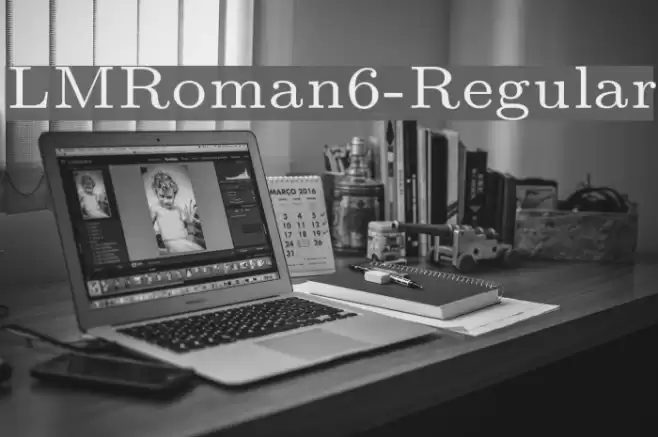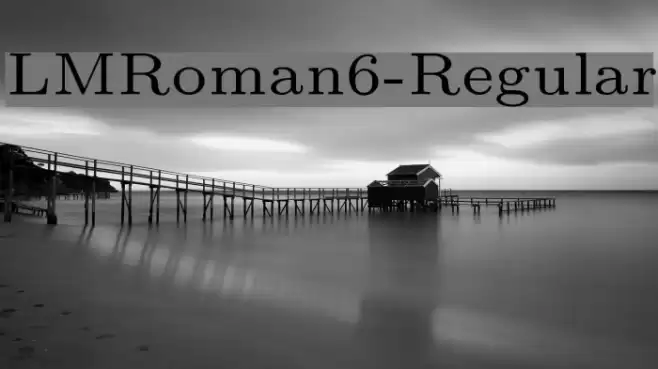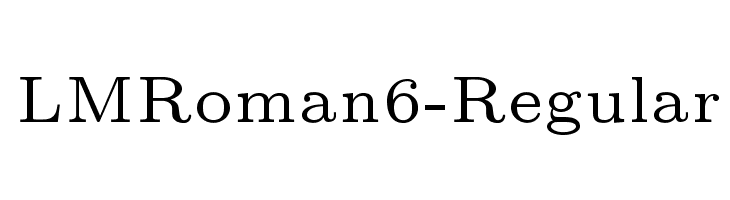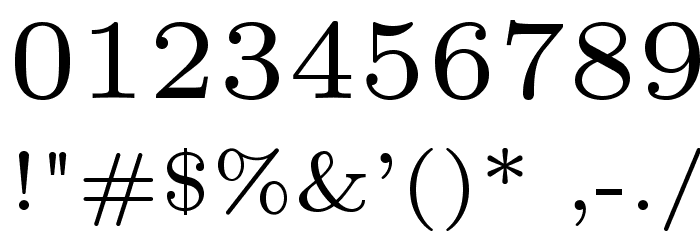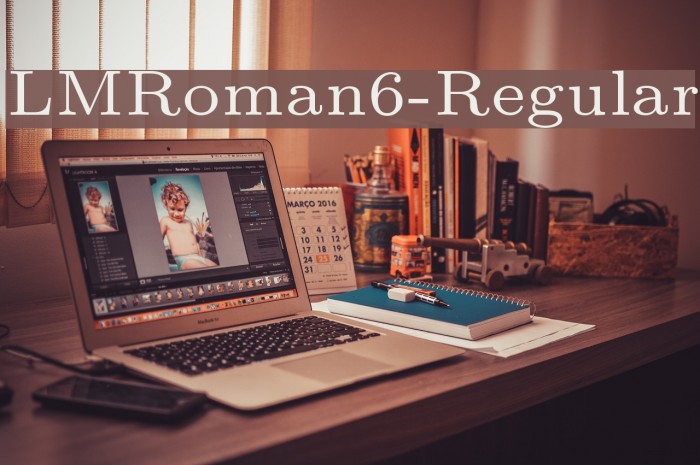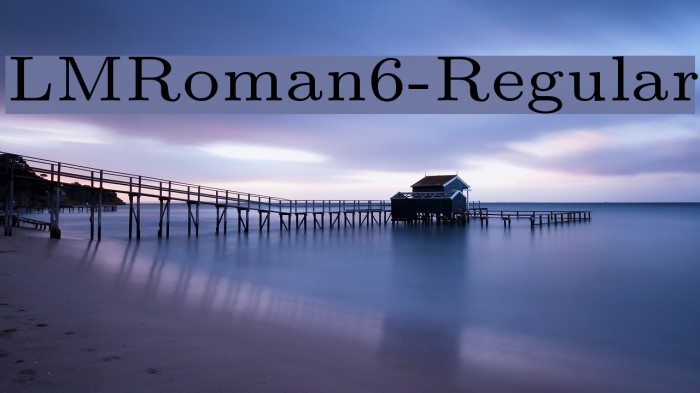
LMRoman6-Regular
This font features a classic serif style with elegant and refined strokes. The uppercase letters are well-proportioned, with a slight contrast in stroke thickness that adds a touch of sophistication. The lowercase letters maintain a consistent style, with smooth curves and sharp serifs that enhance readability. The numerals are clear and distinct, making them suitable for various applications. Special characters are designed with the same attention to detail, ensuring a cohesive look across all glyphs. This font embodies a timeless aesthetic, making it versatile for both traditional and modern design projects.
A classic serif font with elegant strokes and refined details.
- Proposed Projects: Ideal for book typesetting, formal invitations, branding, and editorial design.
- Category: Serif
- Overall Style: Classic
- Use Case: Body text, Editorial design, Branding